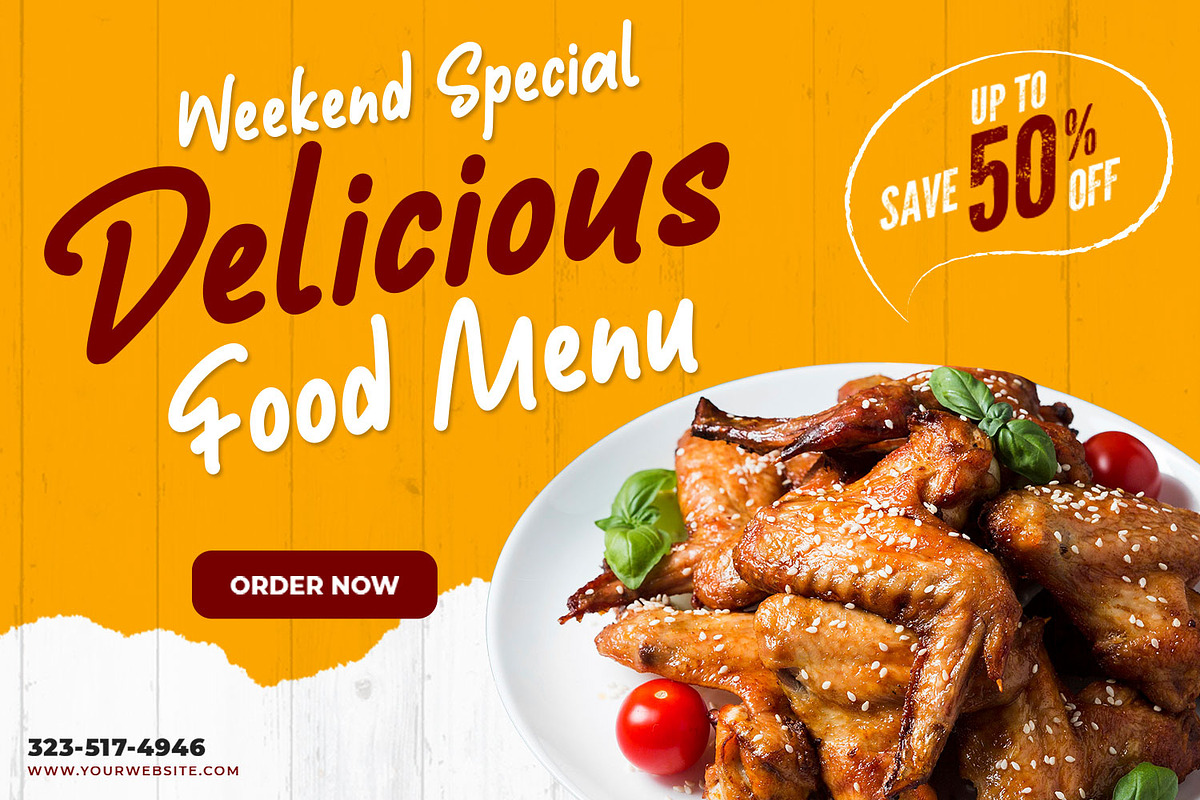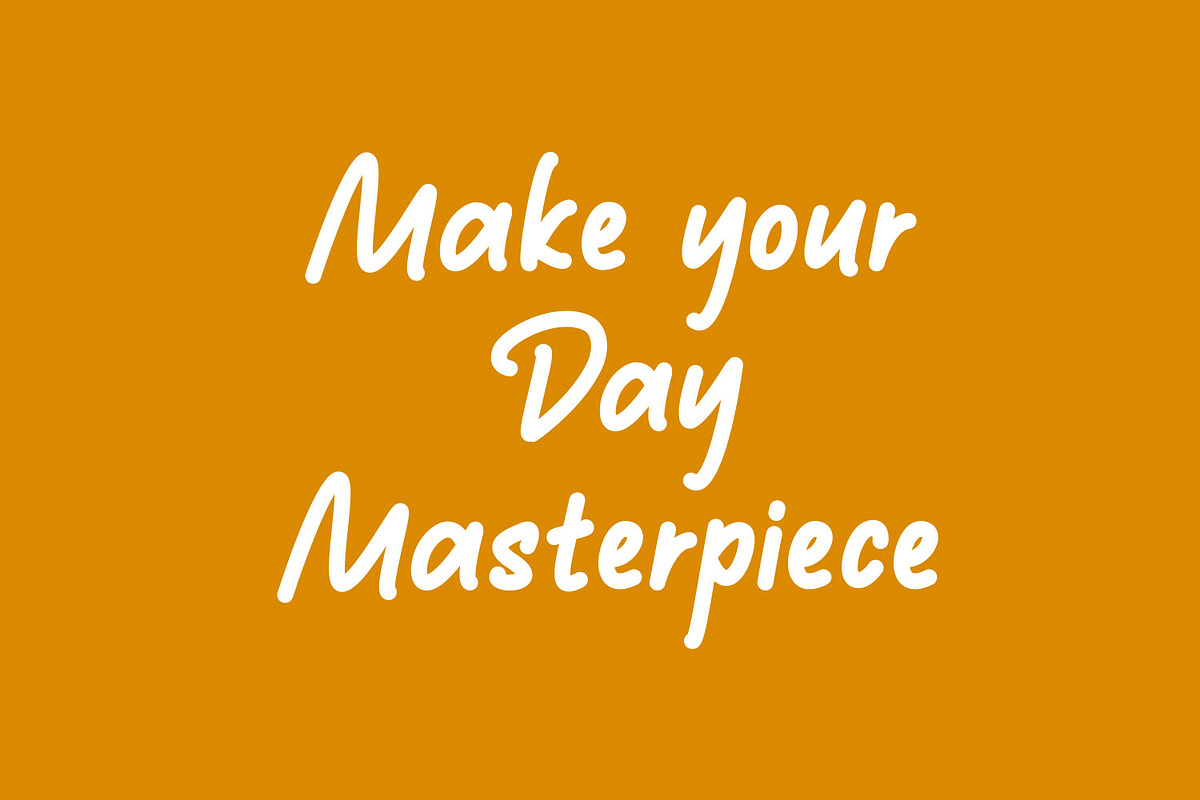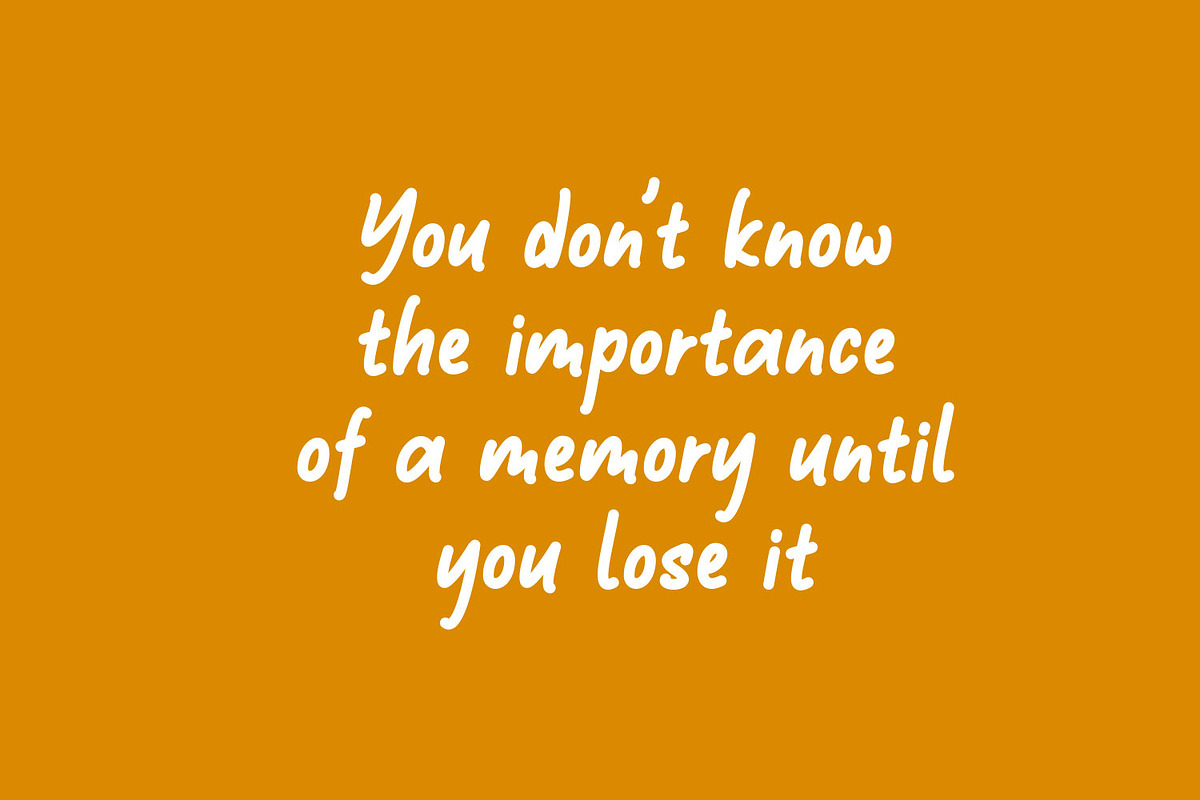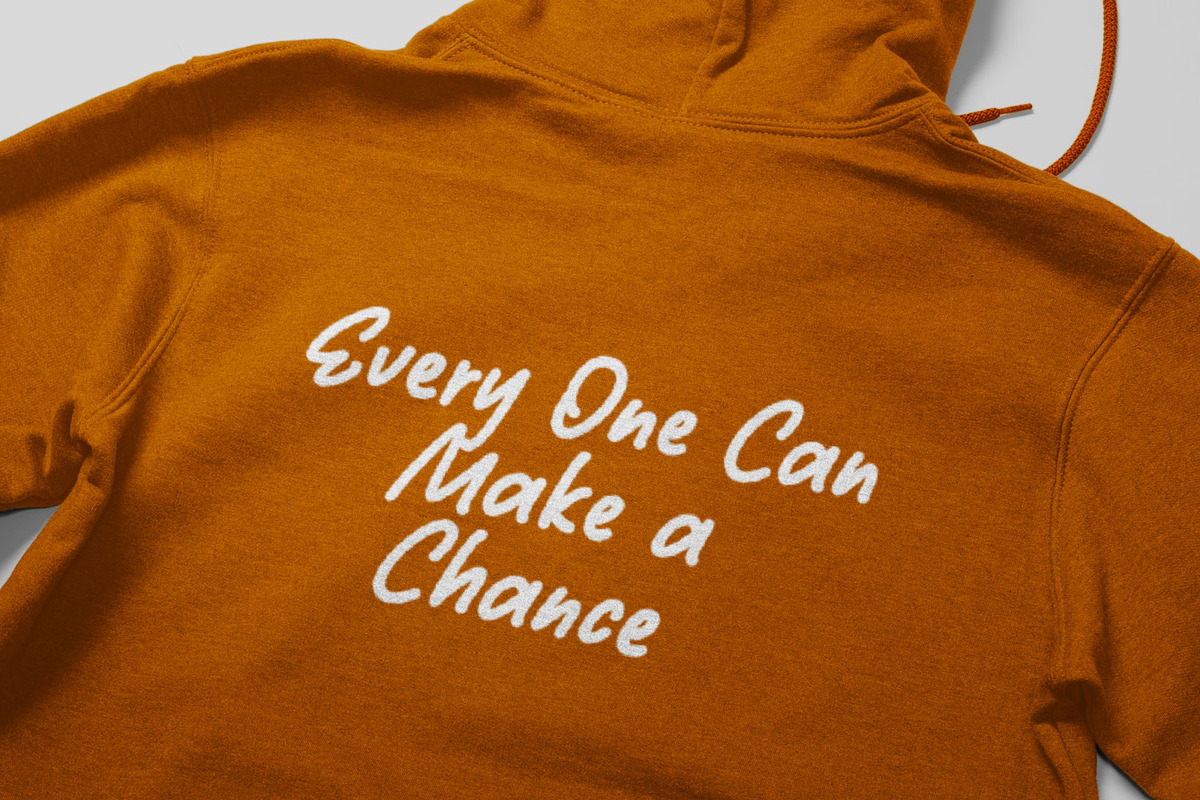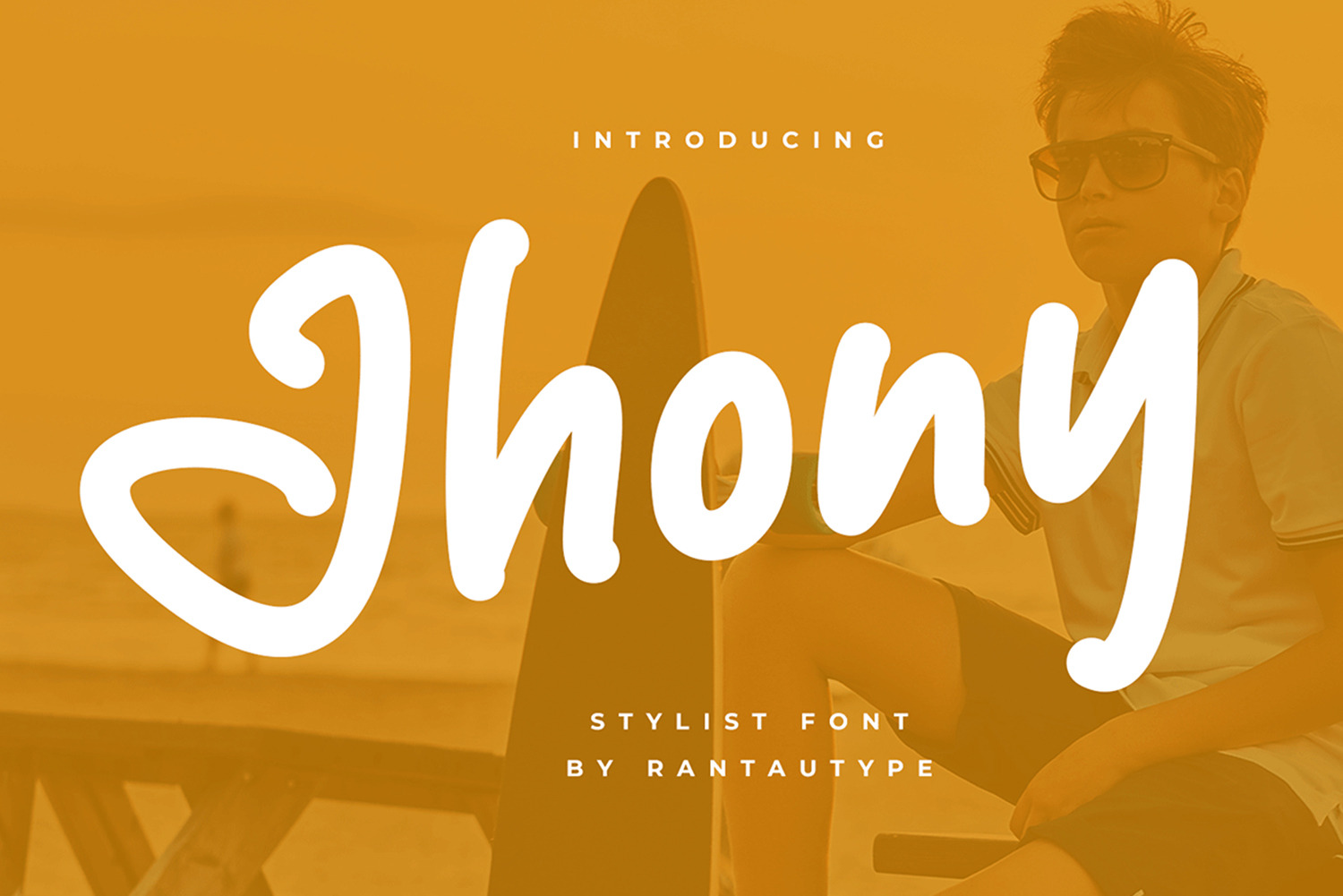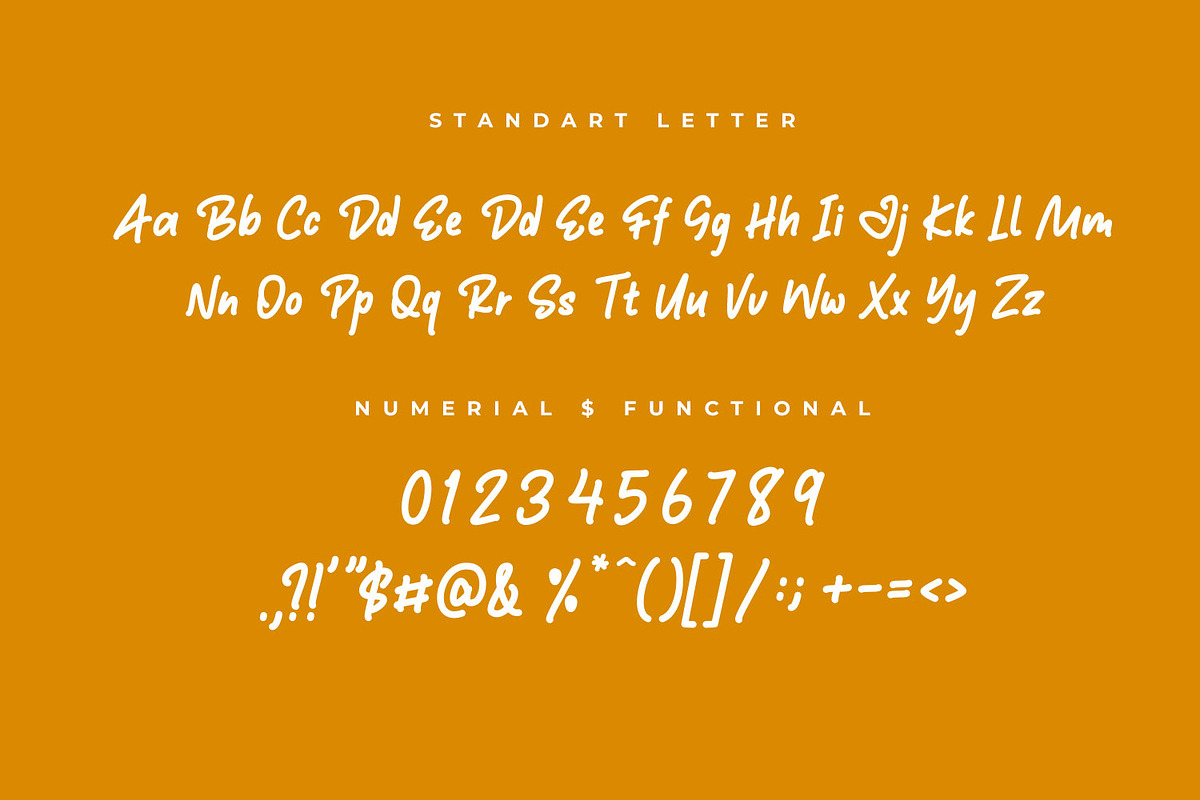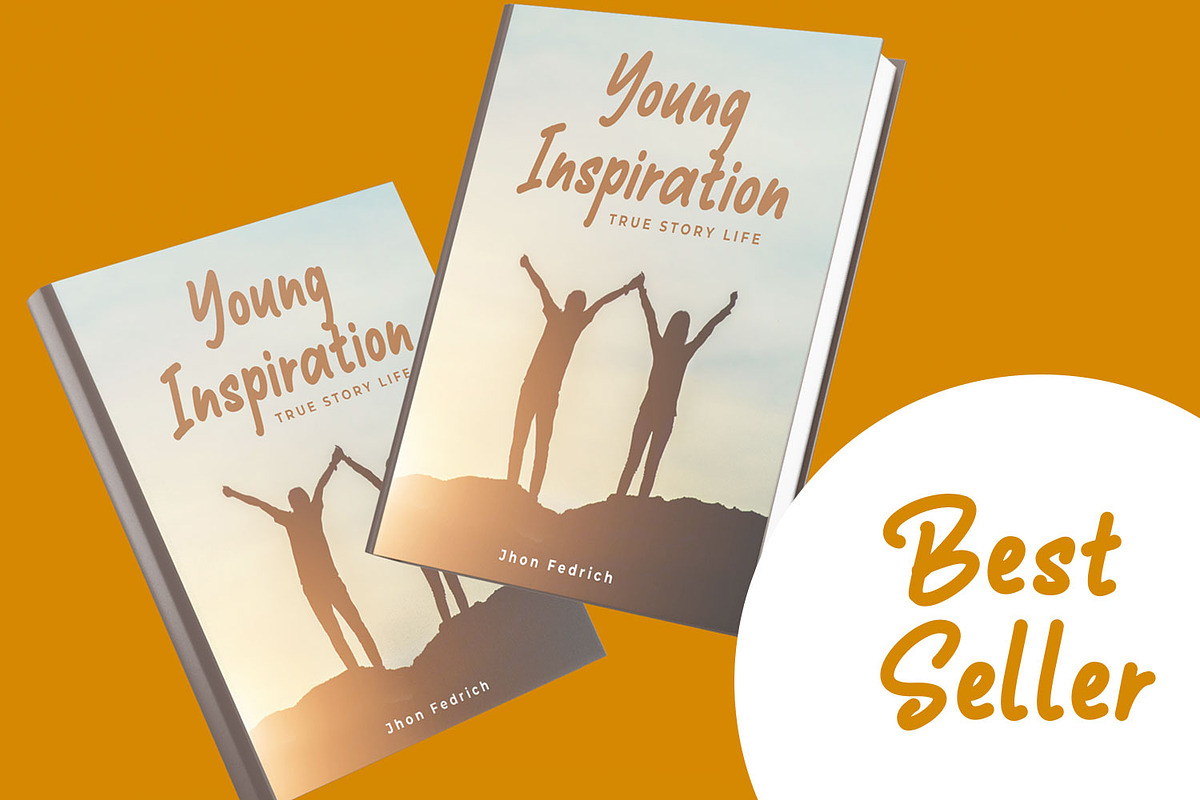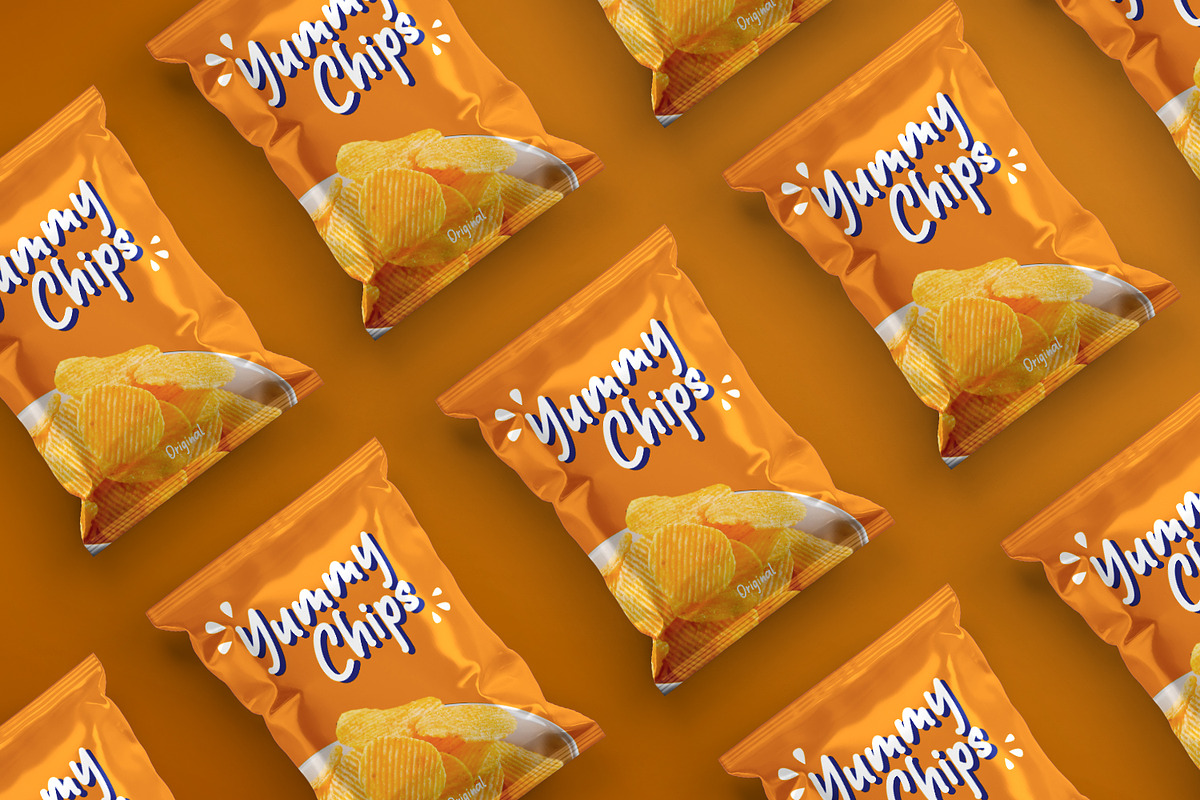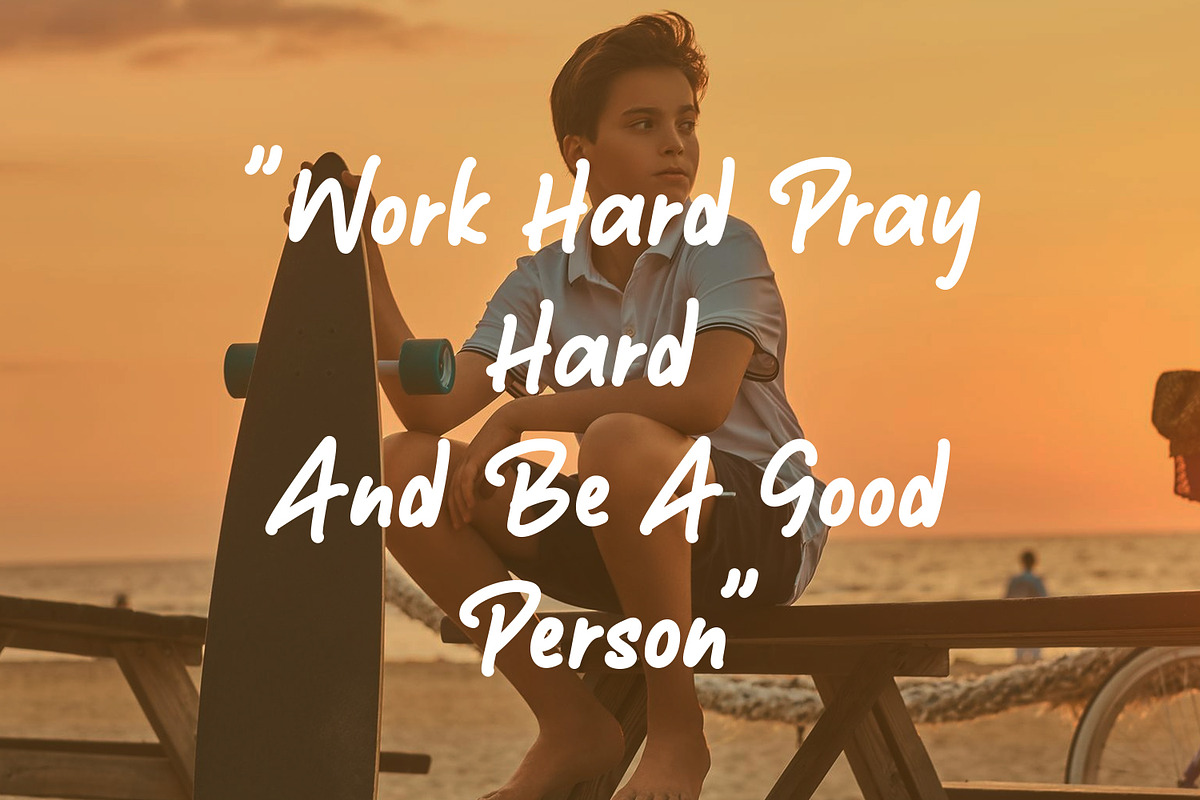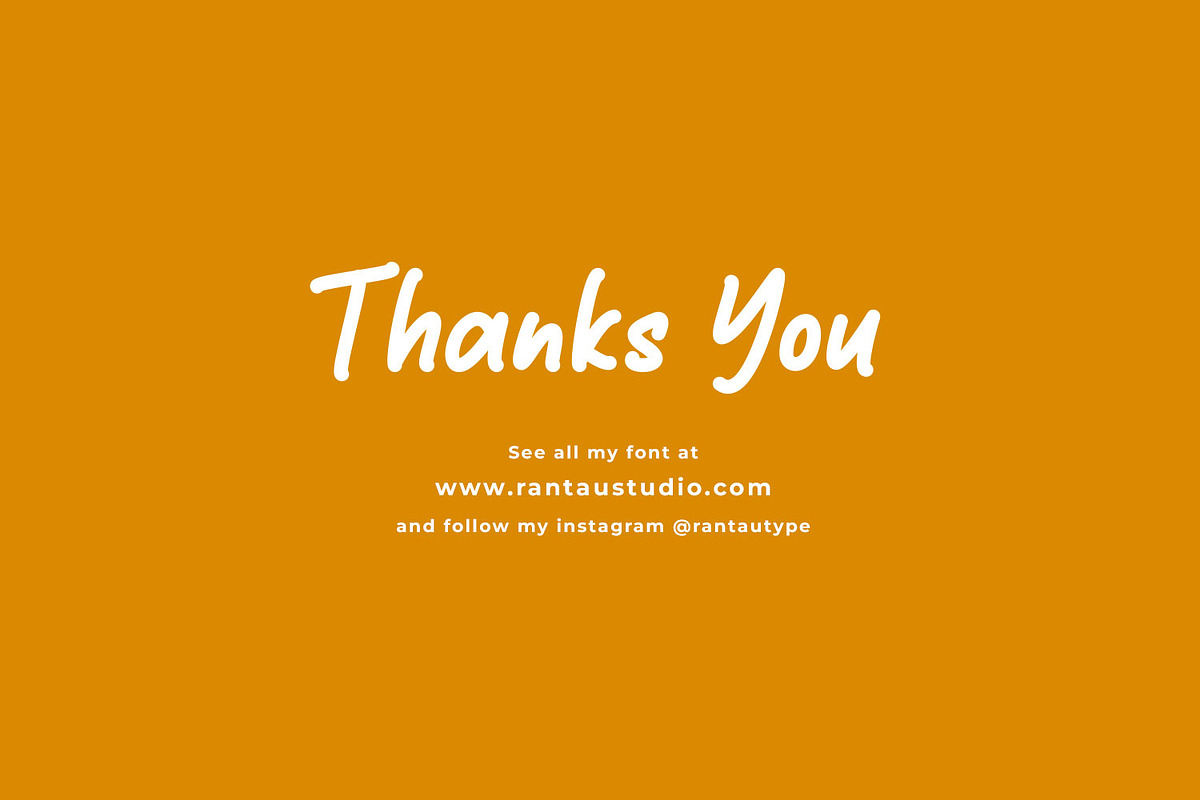
TheJhony - Display Font
Hi Ladies and Gentleman ! Proudly present handwritten font TheJhony Every single curve has my personality touch. It is great for making logotype, branding, promotional ads, quotes design, packaging, t-shirt design. merchandise, poster, merchandise, social media and much more. Shantay is here to make your work or your business to high level!!!
- Standart letter A-Z and a-z
- Numberial
- Functional